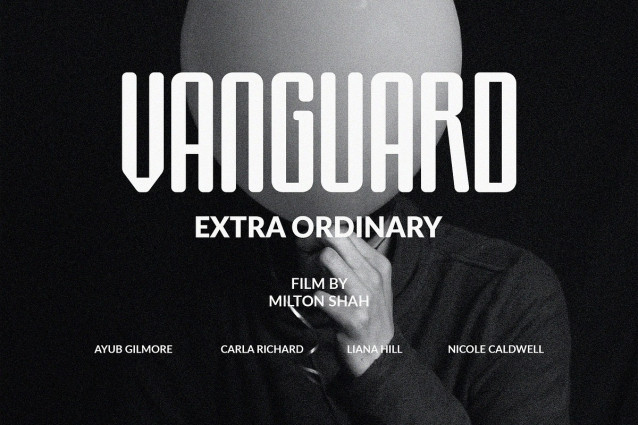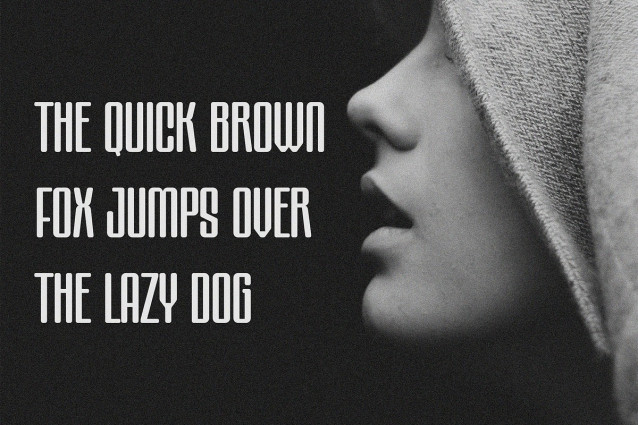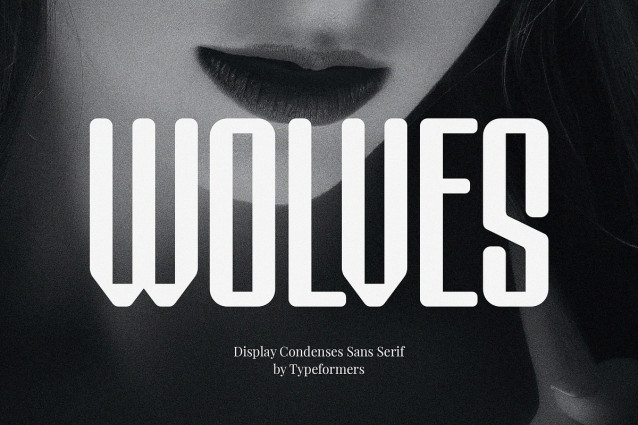
Wolves Sans Font
Wolves Sans Font – Display Condensed Sans Serif, is a modern and simple font, best used as a display for headings, logos, branding, magazines, product packaging and invitations.